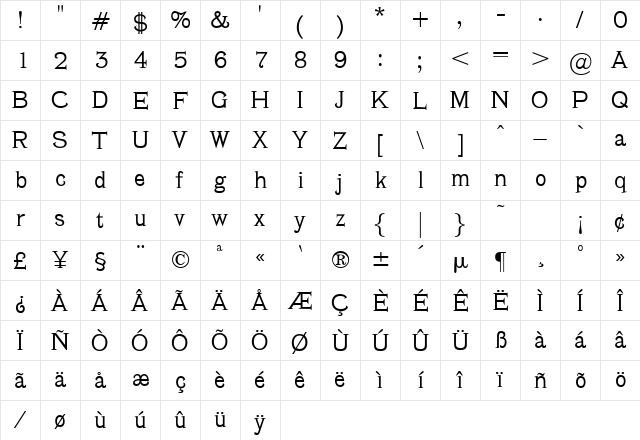
Baltane Regular
Design Context for Baltane Typeface
Baltane takes a measured approach to typography — its balanced proportions and neutral character make it a reliable workhorse for both digital and print work.